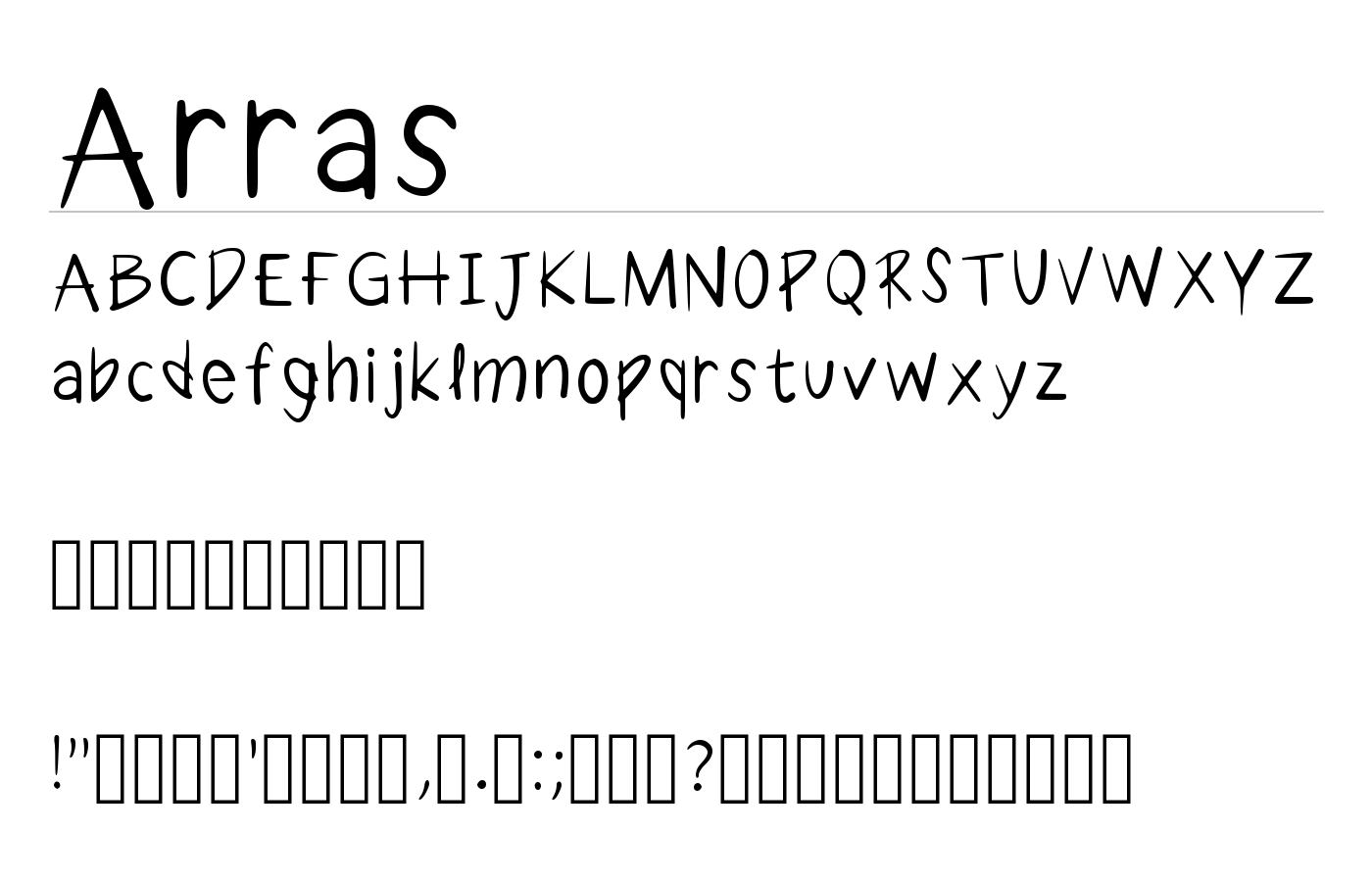
Arras is a playful and casual sans serif font that mimics a neat handwritten style with slender, slightly irregular strokes and a tall x-height. Its quirky letterforms feel friendly and approachable, making it ideal for informal designs, children's materials, and creative branding that seeks a personal touch. This font works well for headlines, invitations, and any project wanting a whimsical yet clear typeface.
Arras Font
About Arras Font